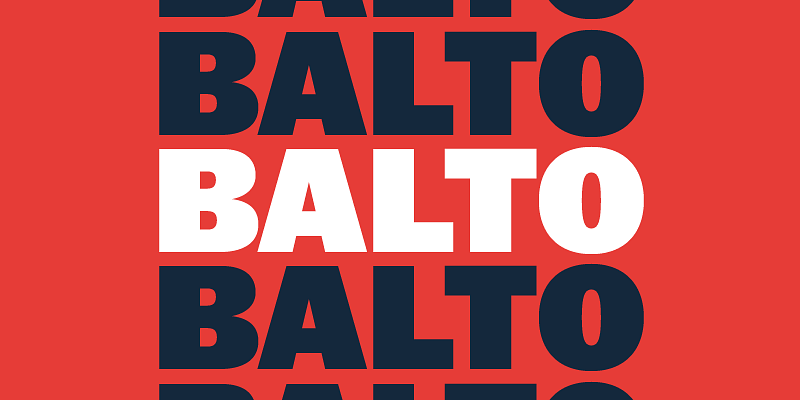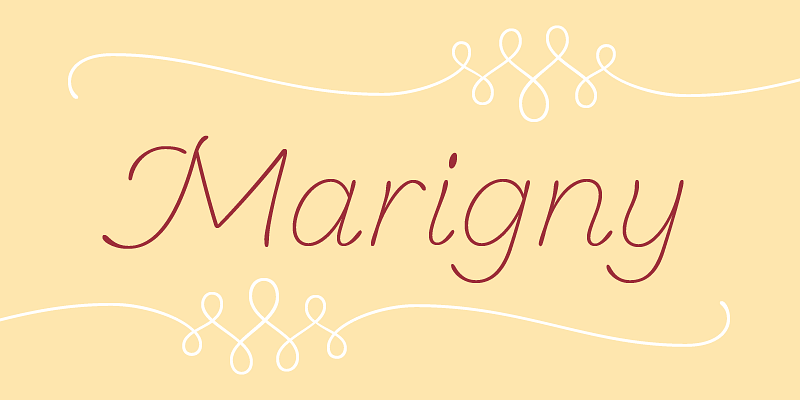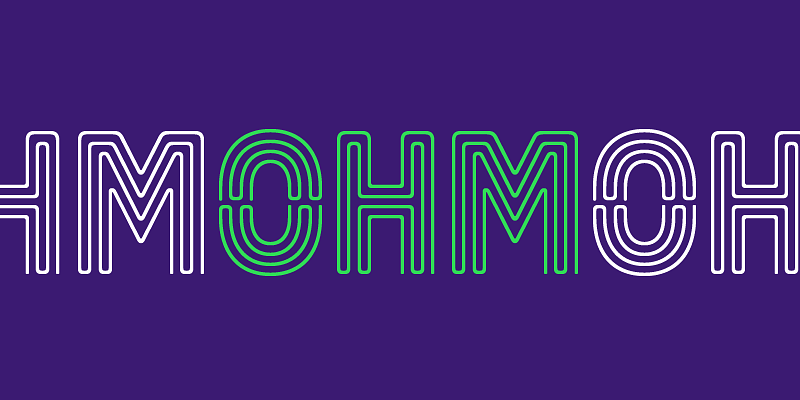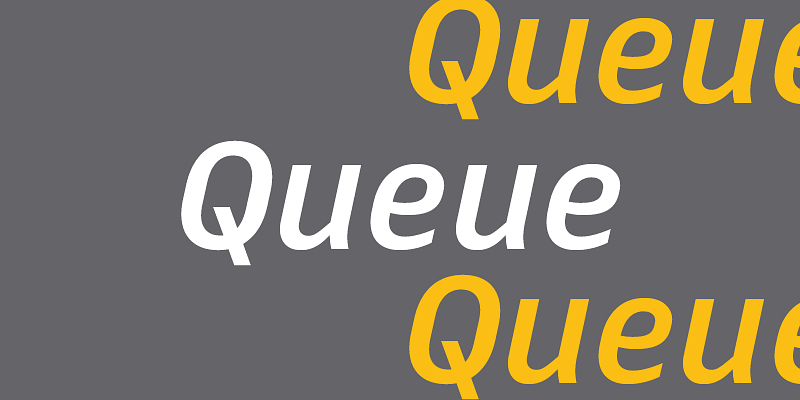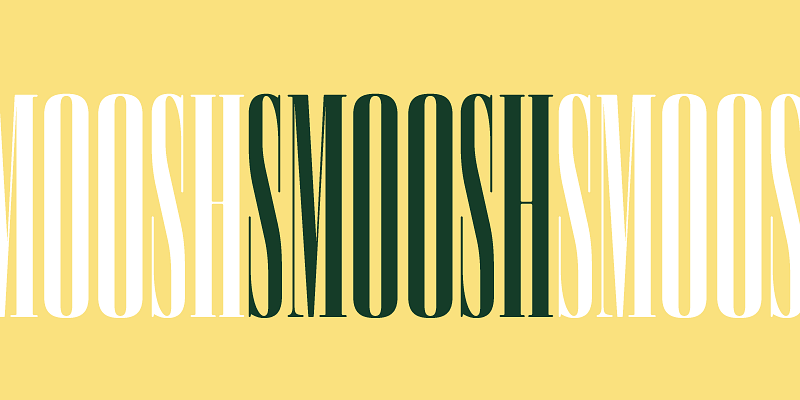
Balto is an American Gothic built for the 21st Century. It has a rhythmic typographic texture that pronounces any message with a confident and approachable tone of voice.
Marigny is a casual typeface that takes its job very seriously. It melds the warmth of handwriting with the functionality of typesetting to form a tool that gives blocks of text, giant headlines and everything between a welcoming disposition.
Ohm is an experiment in recontextualizing vernacular forms into a Post-Modern pastiche. It triggers a psychological juxtaposition in the reader’s mind… Just kidding. It’s a typeface designed to be a simulacrum of letters fabricated with tubes.
Queue typographically represents the intertwinement of technology and humanity. It features calligraphic shapes rendered with machine precision. The highly-legible forms are well-suited to convey any message without ambiguity.
Smoosh is a hyper-compressed, aggressively high-contrast typeface with extremely pointy serifs. The delicate, obnoxious forms give text a “That’s pretty, but what does it say!?” feel.